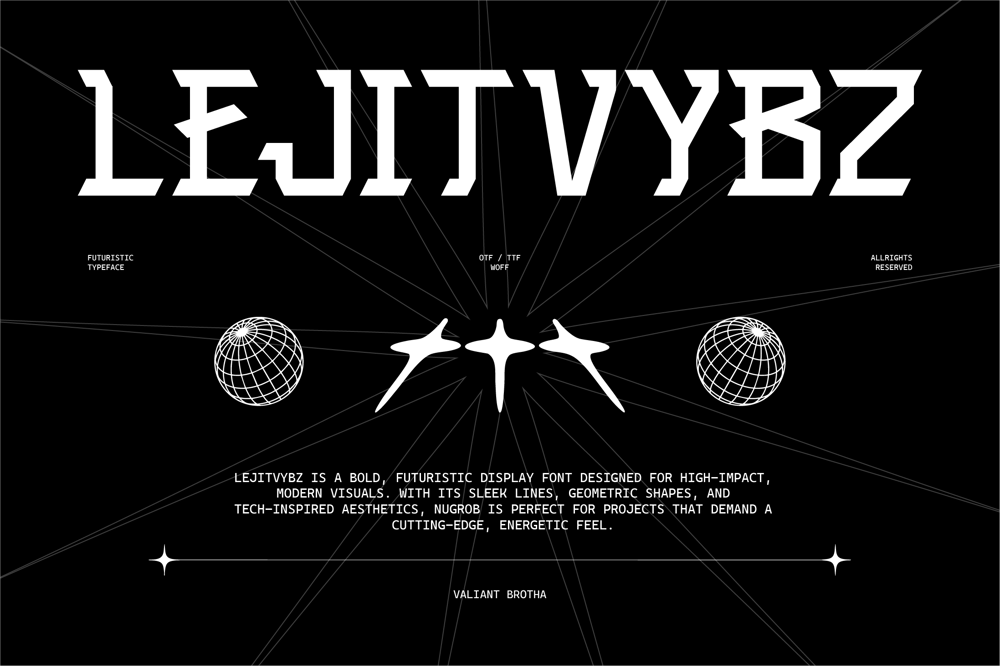
LejitVybz
LejitVybz font
LejitVybz Font Family was designed by Agus Prima and published by Valiantbrotha. LejitVybz contains 1 styles and family package options. Lejitvybz is a bold, futuristic display font designed for high-impact, modern visuals. With its sleek lines, geometric shapes, and tech-inspired aesthetics, Lejitvybz is perfect for projects that demand a cutting-edge, energetic feel. The sharp angles and distinctive letterforms evoke a sense of advanced technology and digital innovation, making it ideal for logos, headlines, and any design that needs to stand out in a modern, tech-driven environment. Its heavy weight ensures visibility and legibility even in large sizes, while maintaining a strong, commanding presence.